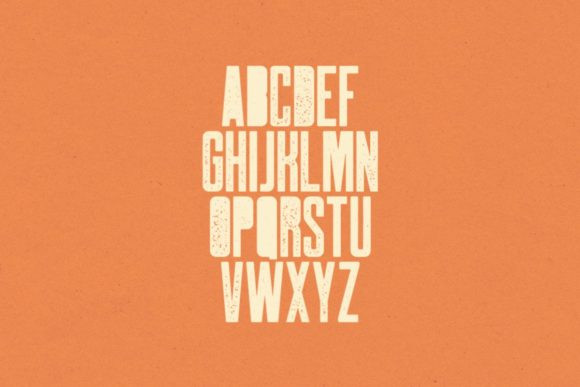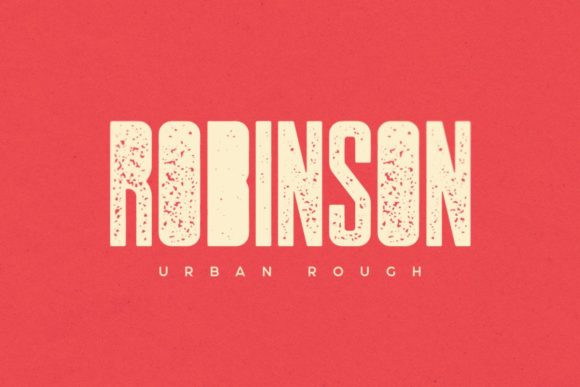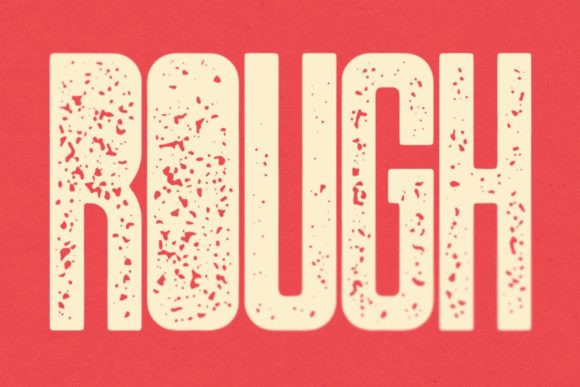
Robinson Urban Rough Font
Robinson is a font inspired by vintage newspaper titles. It’s great for having a bold and attractive title followed by smaller text. It was made specifically with magazines and posters in mind. This version features a grungy style with filled letters and a rough texture.